You’ve been combing through thousands of free cursive fonts trying to find the perfect letter font one, only to come up empty.
We’ve all been there. The right letter font can be a powerful asset in your design toolbox - they have the ability to portray a strong brand message and evoke powerful emotions from your audience. But, with the overwhelming choice of free cursive fonts out there how do you know which one is the right cursive font for you?
01. Rissa
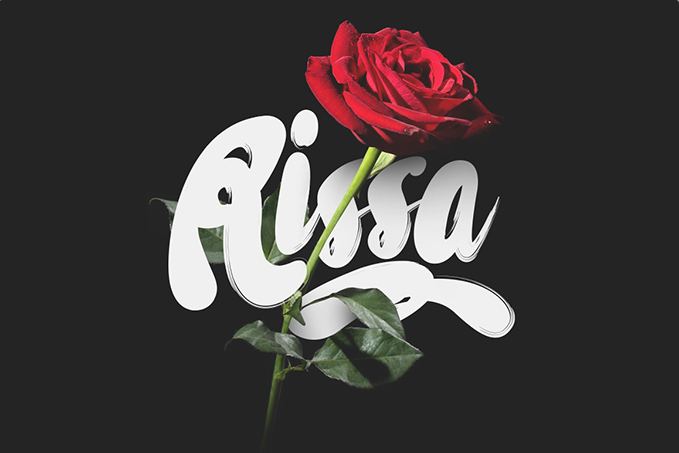
02. Serendipity
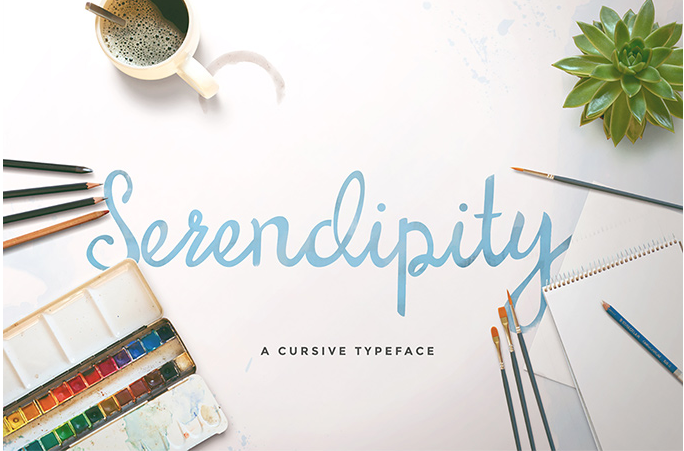
03. Mightype
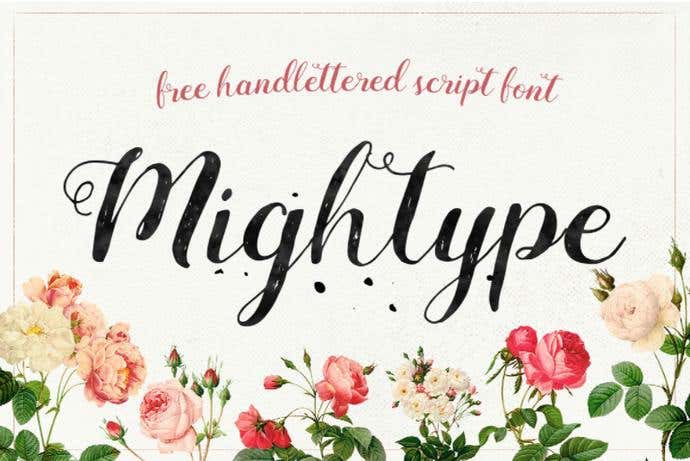
Designer: AF Studio
Mightype is a beautiful, hand lettered cursive font that pays homage to traditional hand lettering artists. This letter font has great character, with the distinctive hand drawn texture element, and the fancy swirls and curls as the final cherry on top. Perfect to dress up an invitation, or website this font is sure to impress every time.
04. Neaments
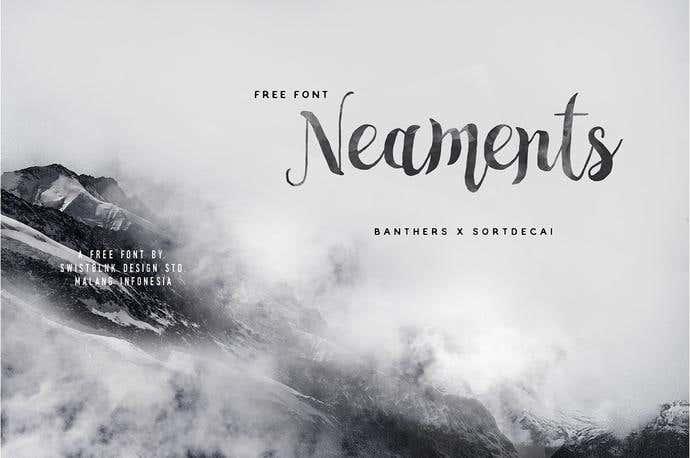
Neaments is a free cursive font that evokes a sense of playful eeriness. The varying brushstroke depths and intentional irregularities give it a nice calligraphic handwritten touch. Perfect for websites, invitations and t-shirts - you’ll even see an iPhone or two sporting this letter font.
05. Sophia
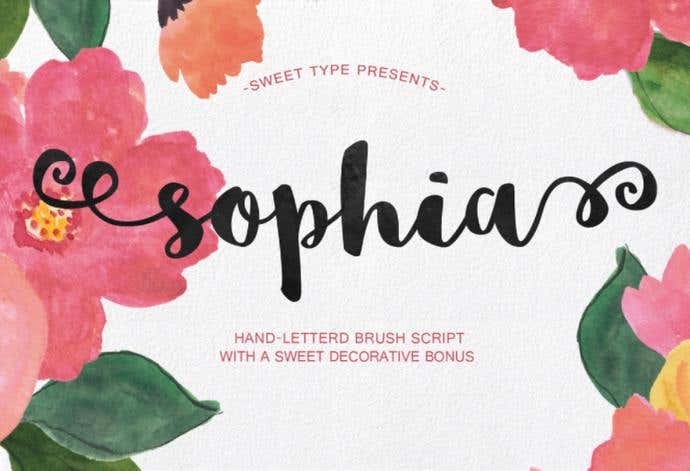
Designer: Emily Spadoni
Sophia. What comes to mind when you think of that name? Something feminine, elegant and beautiful. And that’s exactly what this free cursive font brings to the table, despite its thick, almost rough brush strokes. It has a carefree and fanciful air about it. The perfect letter font for adding a touch of delicate sweetness to a poster project.
06. Playlist
Designer: Artimasa Studio
Playlist is a playful free cursive font that shines with its imperfections. The dry brushstroke textures enhance the handwritten, worn style of this letter font. It’s designed to be imperfect. And that’s what makes it so versatile and lovable. If you’re creating apparel, posters, or homeware designs this font won’t disappoint. You’ll have fun while leaving a lasting impression!
07. The Woodlands
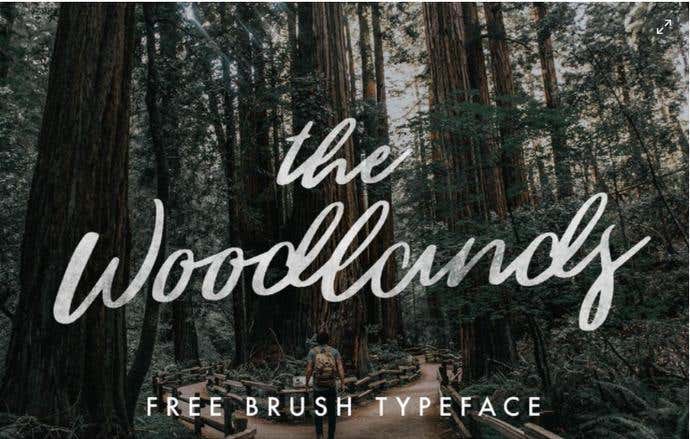
Designer: Jeremy Vessey
Woodlands takes its style from traditional calligraphy, but with a modern twist. The sweeping handwriting is stylish and sensual, which is helped along by the light brushstrokes. It isn’t the most legible cursive font from a distance, but it certainly does add a stroke of elegance to any design project, especially wedding invitations.
08. Bukhari
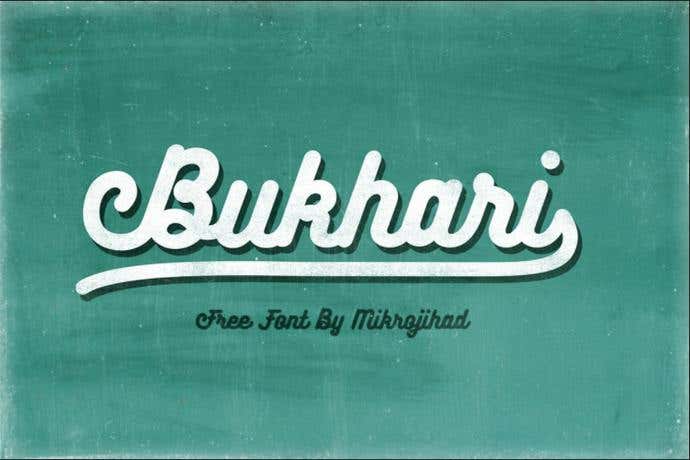
Designer: Mikrojihad
Probably one of the most versatile free cursive fonts, Bukhari comes with a standard, stylistic, and combination set so that you can tailor it to fit your design project. You can also create custom typography with this OpenType letter font. The grunge texture gives the font a great vintage and retro feel; and though it’s not the most legible font, it will definitely add some creative flair to your posters, t-shirts or website.
09. Ecosmith Script
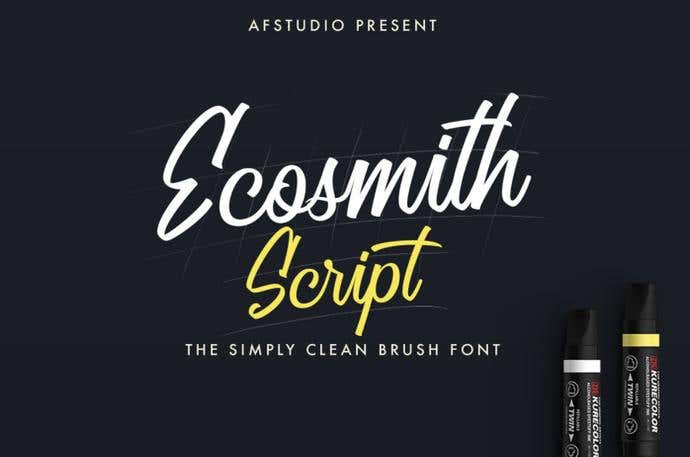
Designer: Adam Fathony
Ecosmith is the perfect blend of classic meets modern calligraphy. Created with a 45 degree, thin brush stroke it can be used to dress up a design or keep things playful. The consistency of the brush strokes makes for a very clean cursive font. This is a must for apparel and display designs. You can even use it as a logotype!
10. Variane
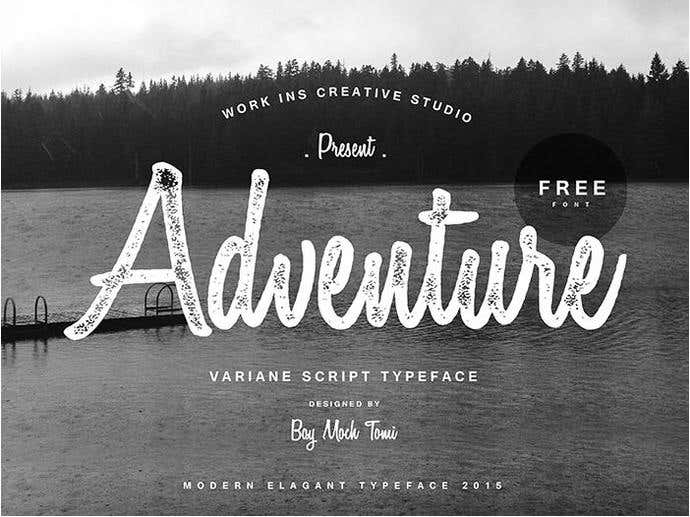
Designer: Boy Moch Tomi
Looking for something with a little vintage charm? Variane is your perfect partner in crime. It has great readability and the grunge texture gives this otherwise ordinary font a special retro effect. Not only will this cursive font make a great statement on a card, website or signage, but it’ll also add a personal handwritten touch to any logotype. You’ll be sure to connect with your audience with this letter font.
11. Fabfelt
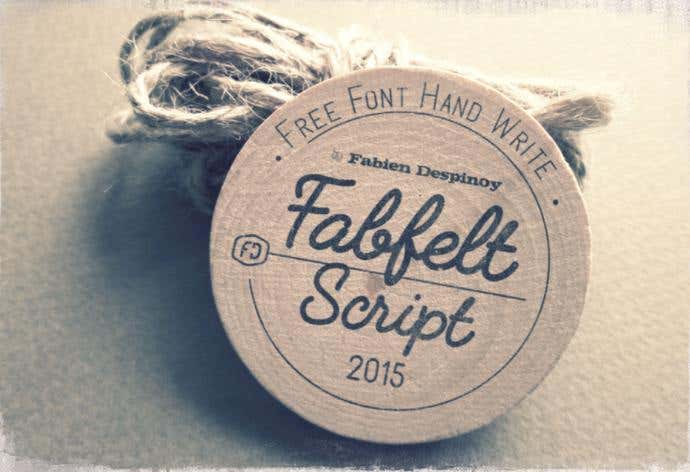
Designer: Fabien Despinoy
Fabfelt is a bold letter font, with a distinct roundness to it. This gives it a soft and gentle air which translates to an elegant playfulness. Perfect for giving your labelling, packaging or logotypes that handmade touch, this free cursive font definitely brings its own personality to the creative table.
12. Bellico
Designer: Seventh Imperium
What do we love about Bellico? It’s just so darn clean. And with a variety of stylish add-ons, you can tailor this free cursive font to fit just about any design project and audience. There’s no give and take here, when it comes to legibility and accessibility. It definitely benefits from its narrow tracking, which makes it perfect for posters and headlines.
13. Morracle
Designer: Maulana Creative